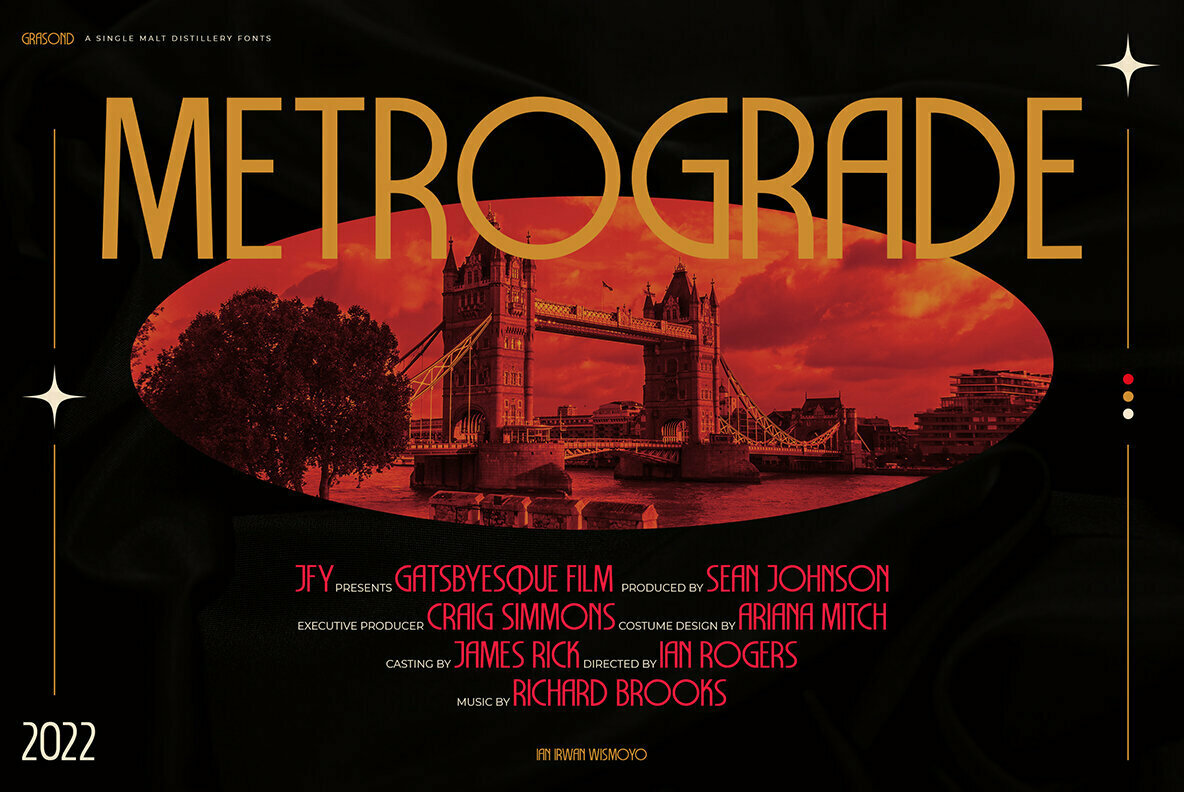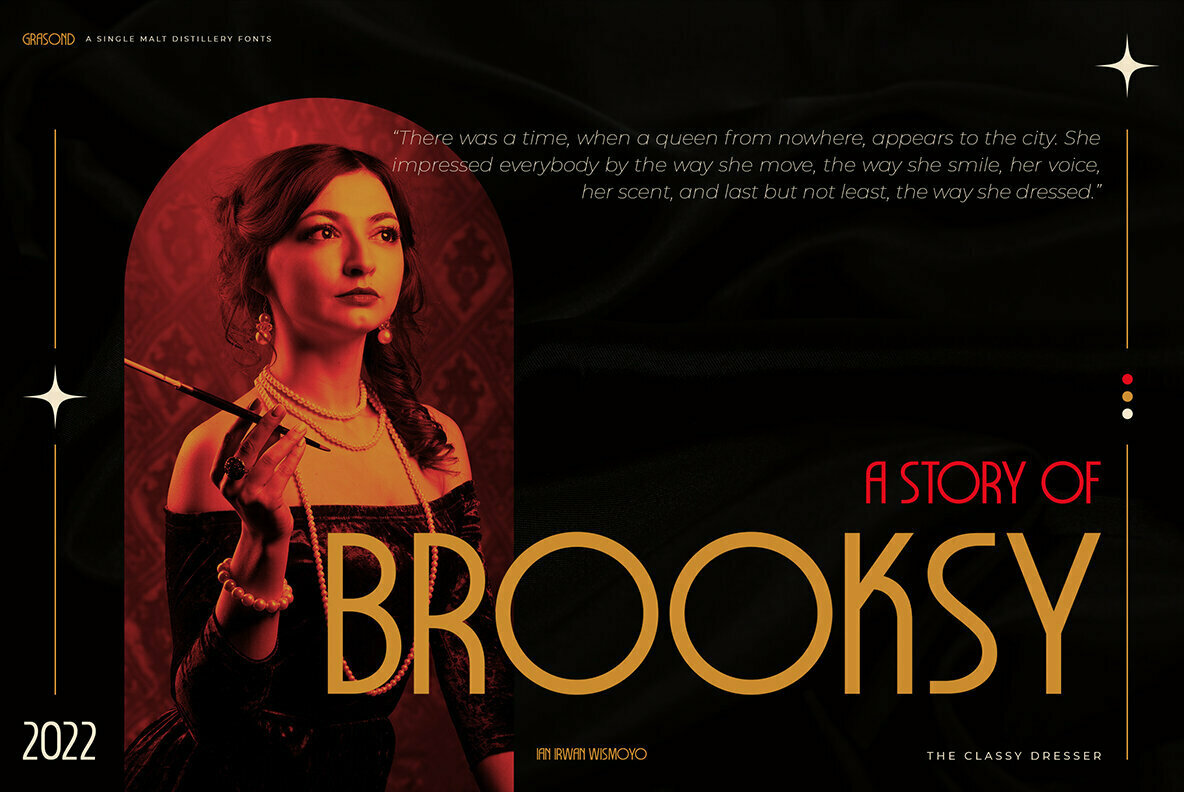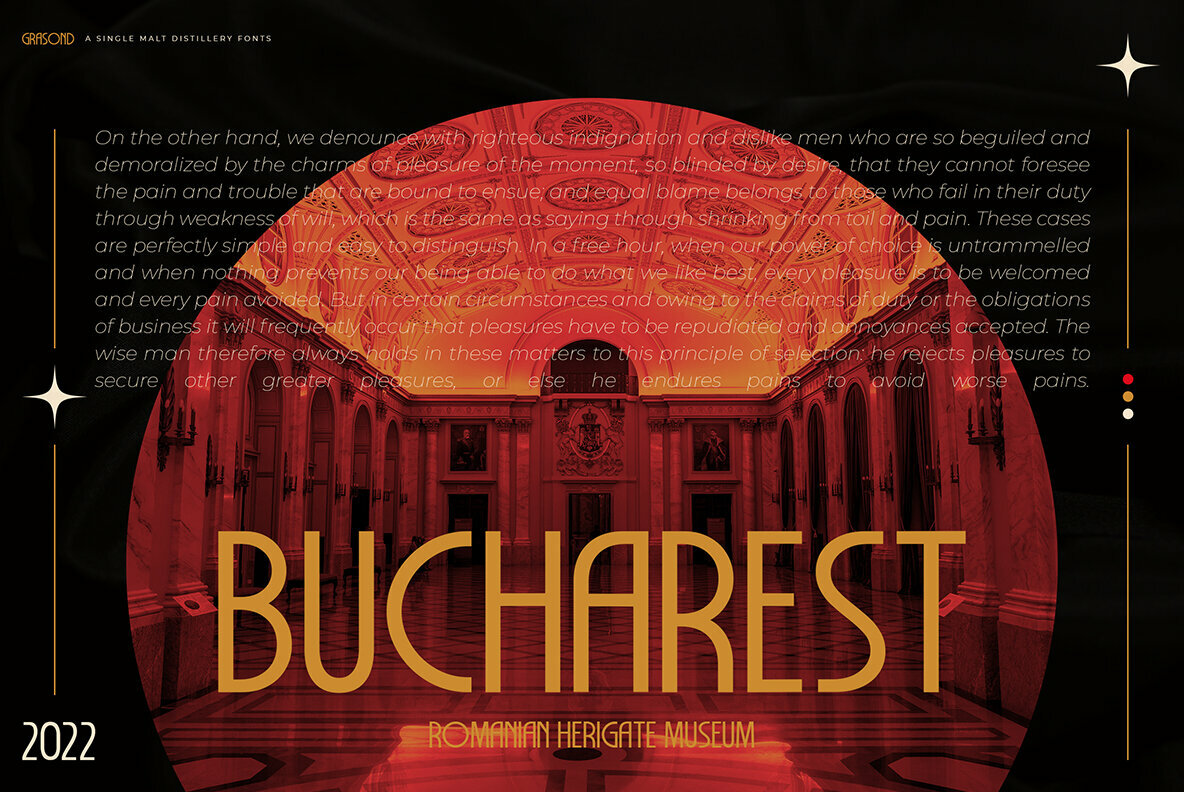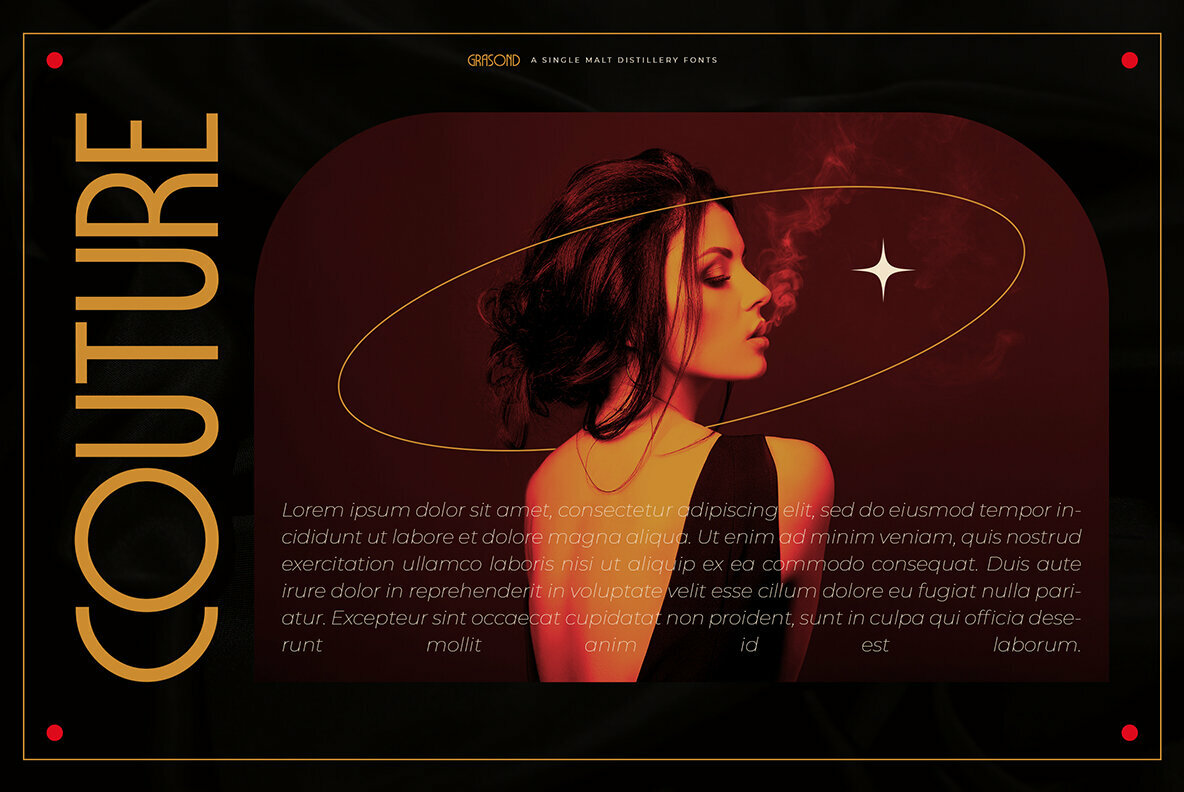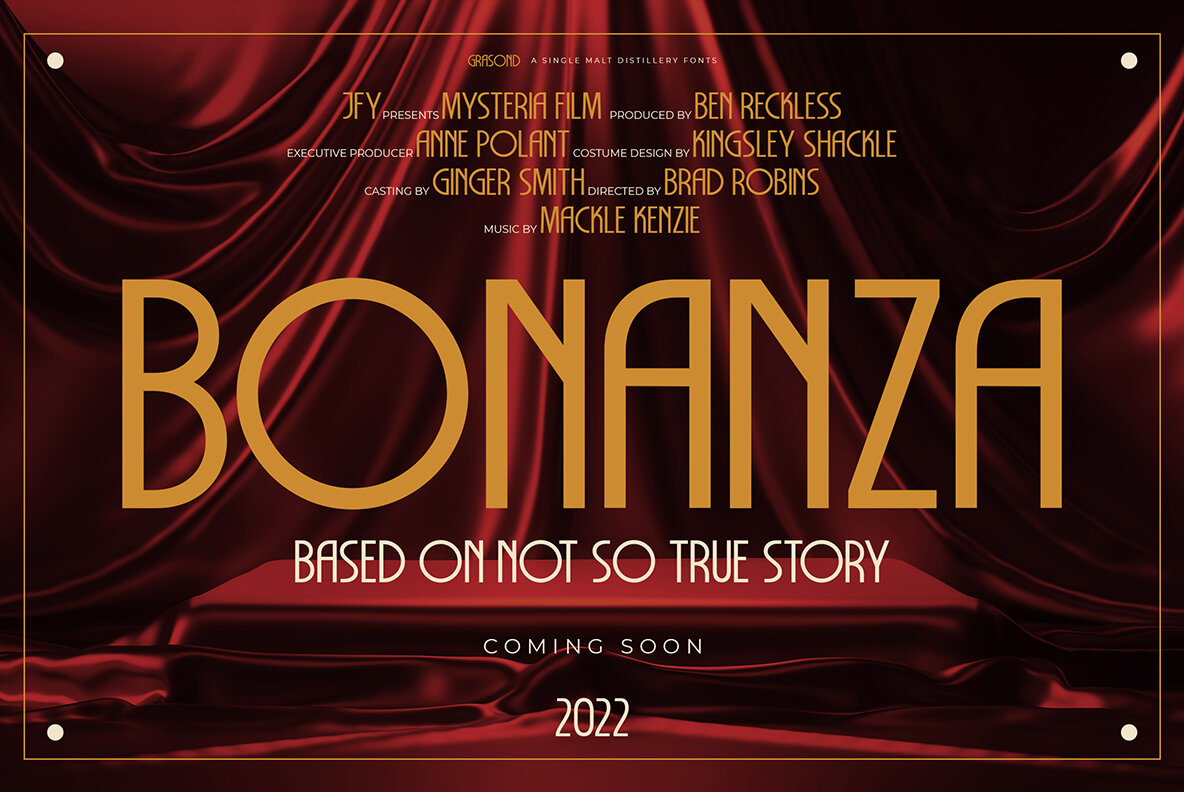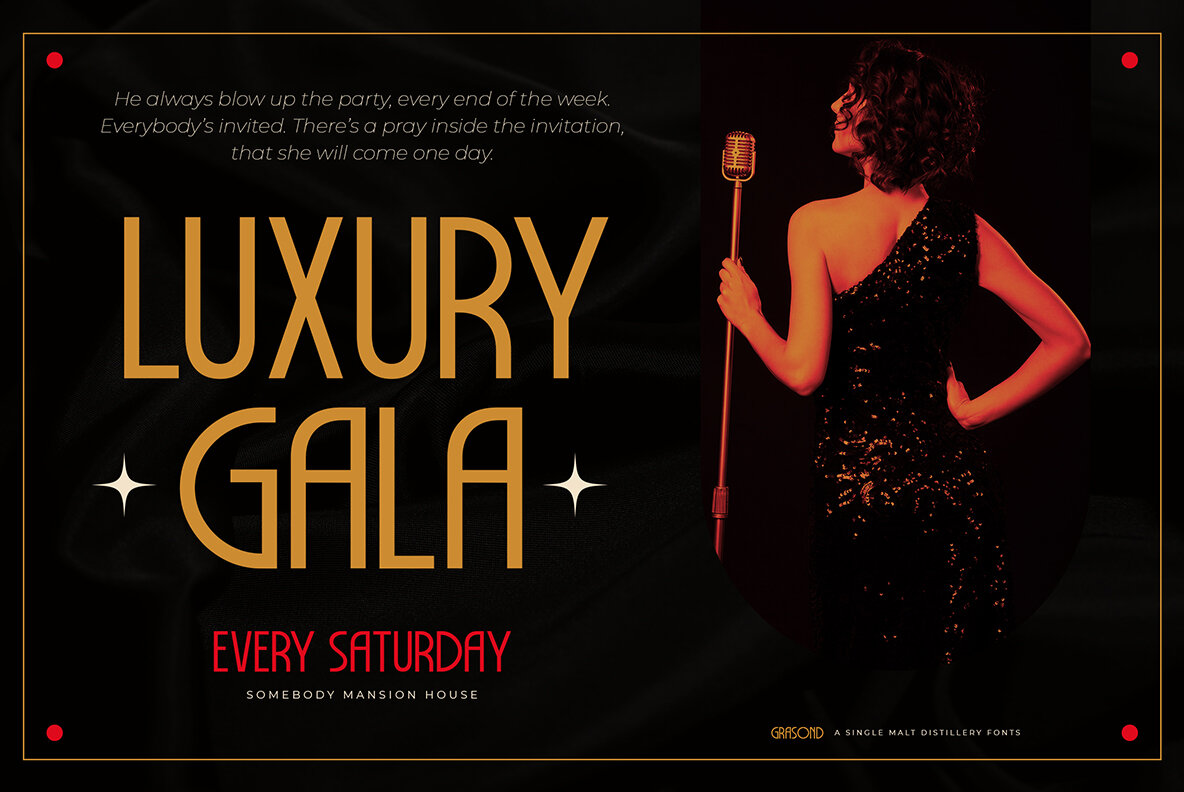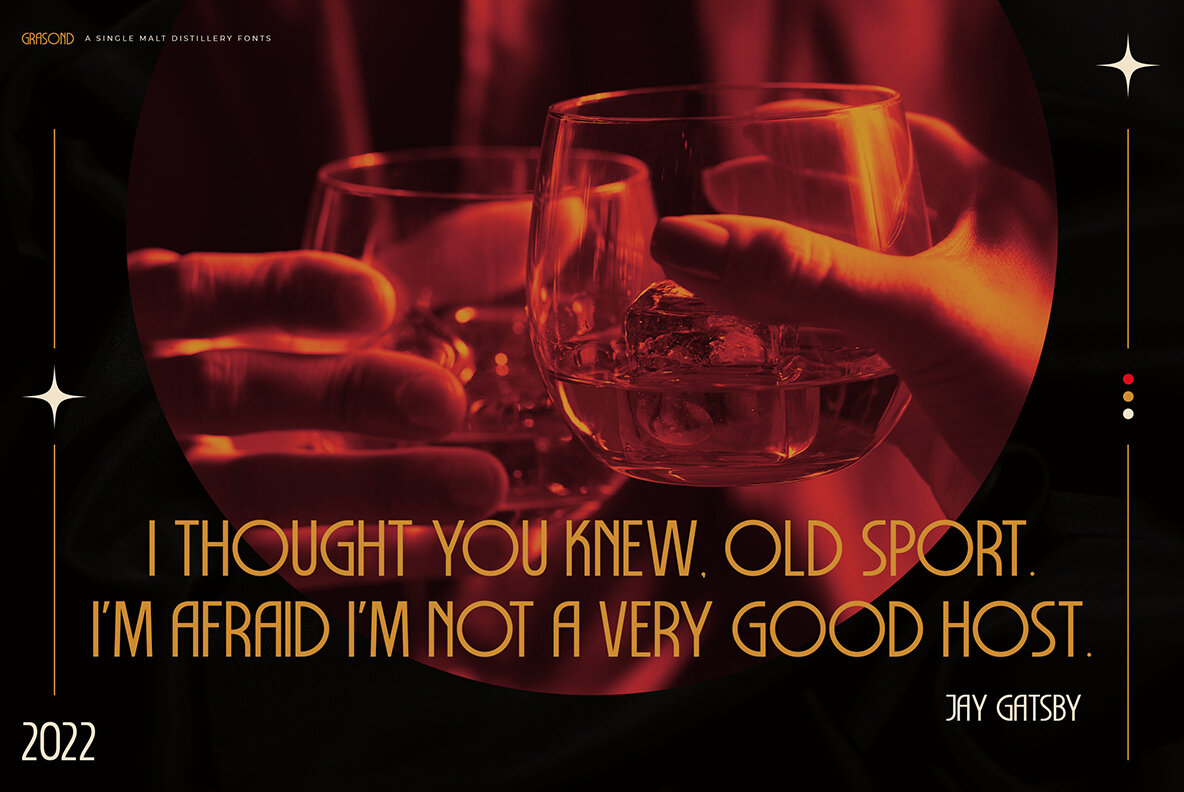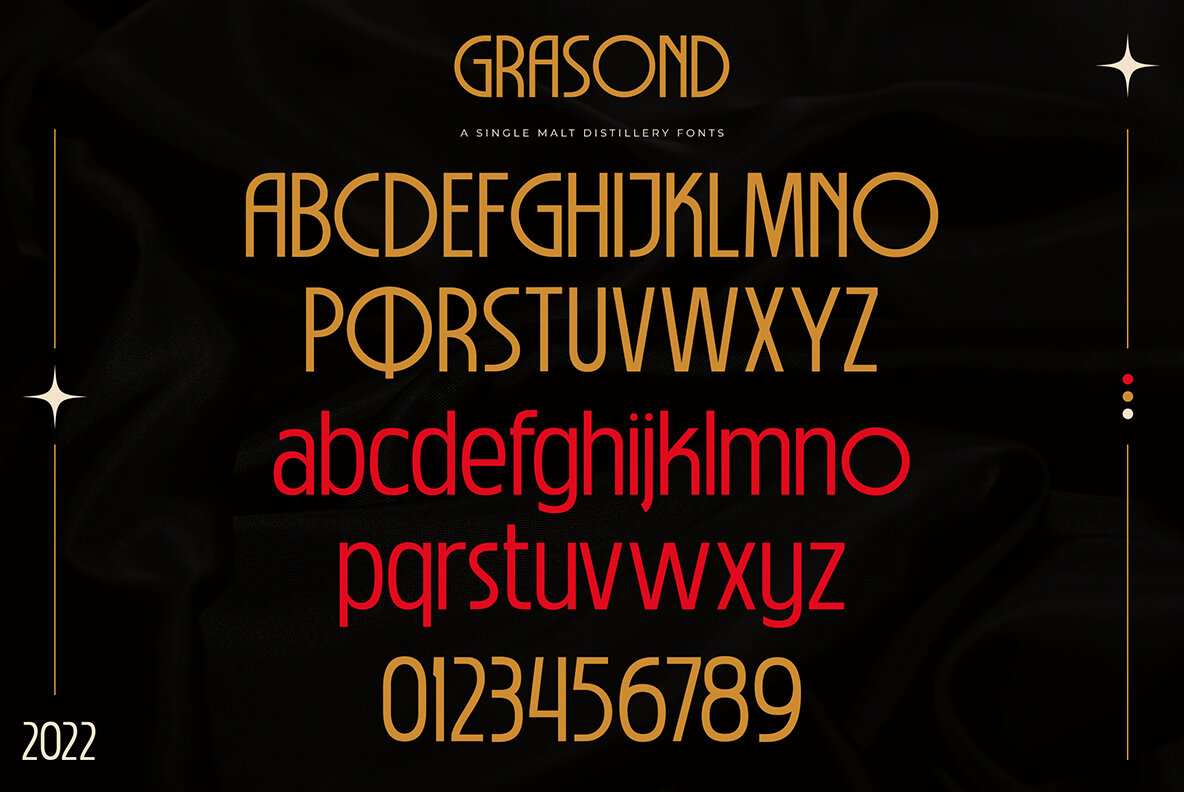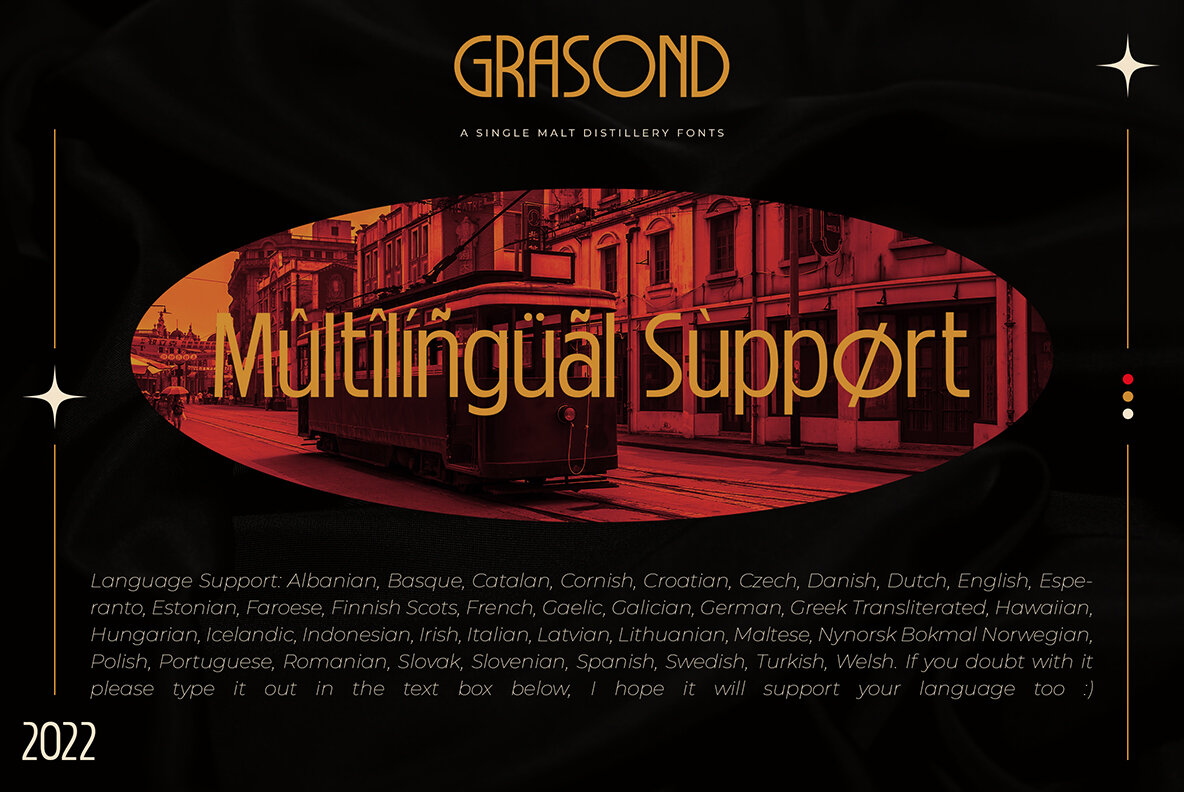
Grasond Font
Grasond Regular
The greats are back! Welcome to Grasond, a modern take on vintage design. With our sans-serif font inspired by Art Deco's old world charm and luxury appeal for your branding needs in any time interval imaginable.